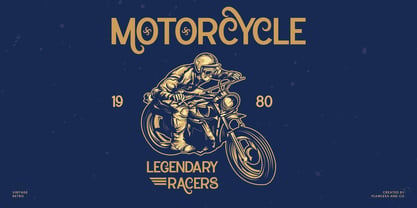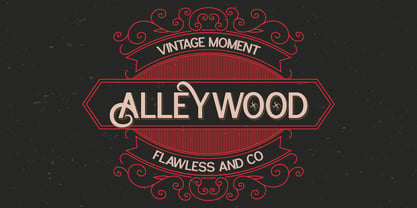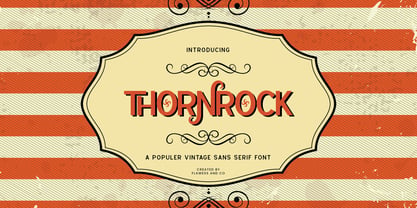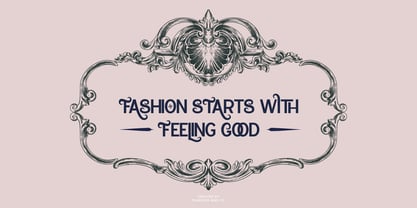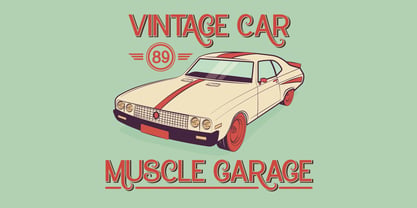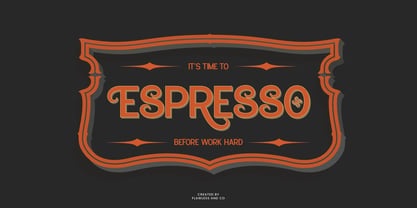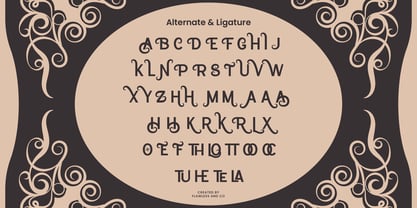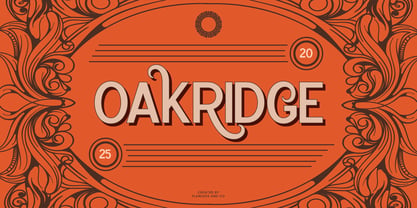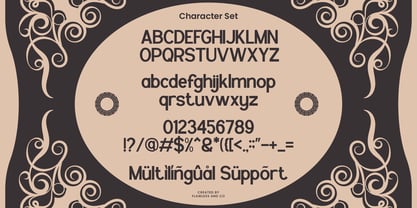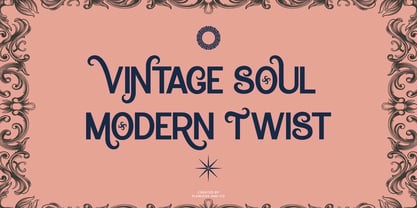
Thornrock
Die Schriftfamilie Thornrock wurde von Achmad Yani entworfen und von Flawlessandco veröffentlicht. Thornrock enthält 1 Stile. Mehr über diese Familie
Thornrock is a rugged and charismatic sans serif font that draws inspiration from vintage signs, old-school branding, and timeless industrial design. With strong letterforms, classic proportions, and a subtly aged character, Thornrock brings a bold sense of heritage to your work. Perfect for logos, packaging, posters, apparel, and retro-inspired branding, this font combines clean sans-serif clarity with nostalgic flair. Whether you're designing a whiskey label, a barbershop logo, or a heritage-themed product line, Thornrock stands firm with style and authenticity. Its all-caps build, crisp lines, and solid structure make it a go-to choice for impactful, era-inspired typography.
Features :
Multilingual, Uppercase alphabet A-Z, Lowercase alphabet a-z, Numbers 0-9, Some punctuation, Alternates & Ligatures